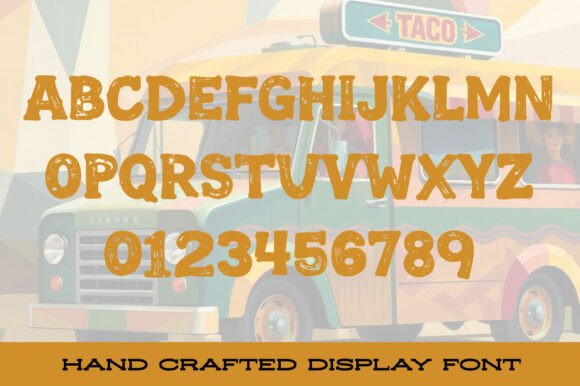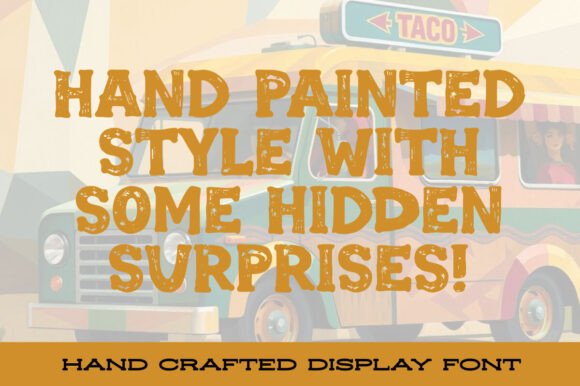
Chili Chalk Font
Chili Chalk is a vintage-style hand-painted font bursting with bold, spicy character. Its textured, chalky strokes capture the vibrant energy of street food culture, making it perfect for taco trucks, cantina menus, and festive Latin-inspired designs. With a playful yet rugged look, Chili Chalk adds a flavorful touch to any project, bringing out the heat and authenticity of hand-crafted lettering. Perfect for bold headlines, signage, and logos that need a dash of zest and charm!